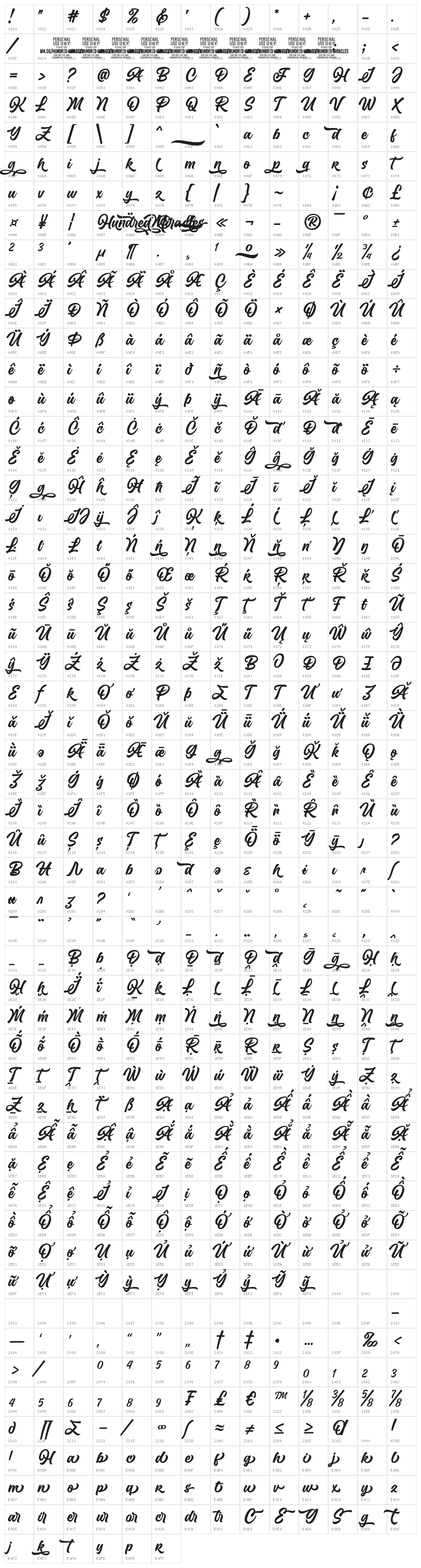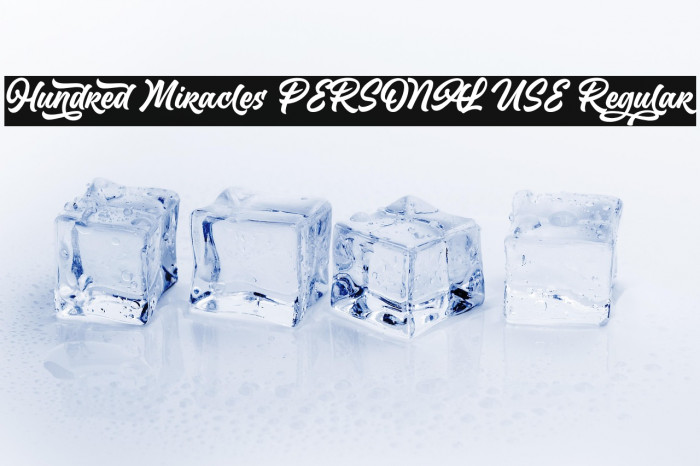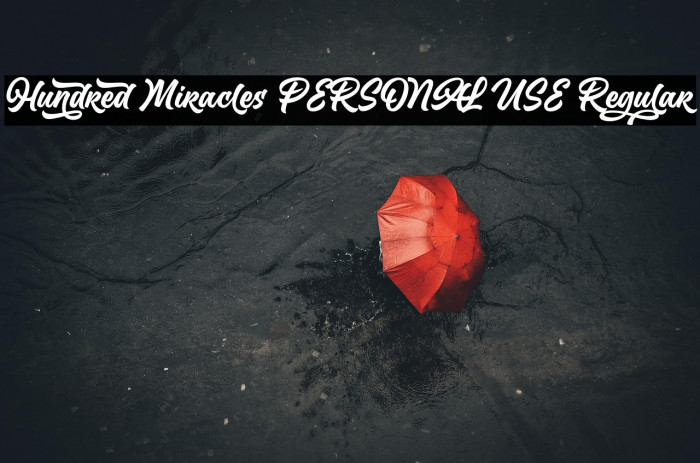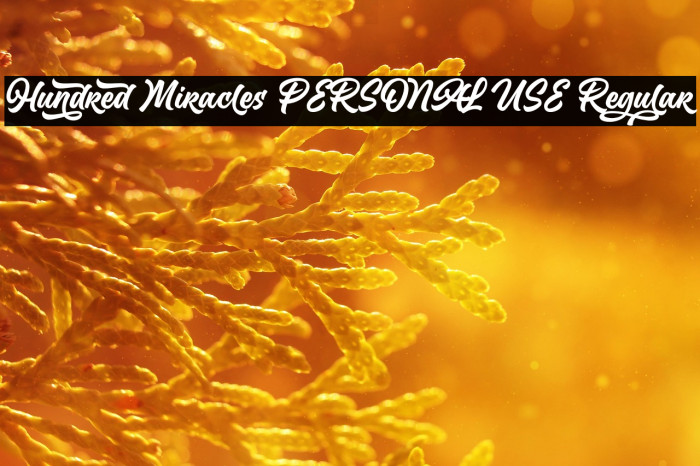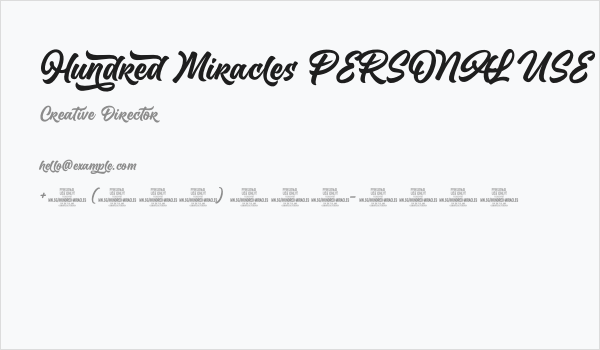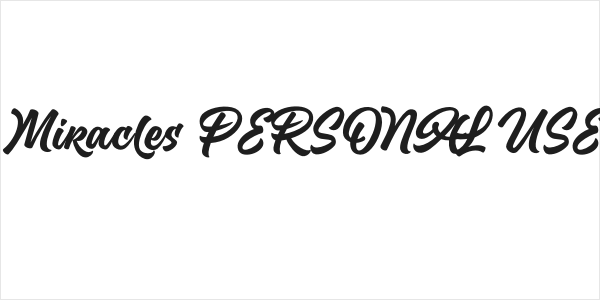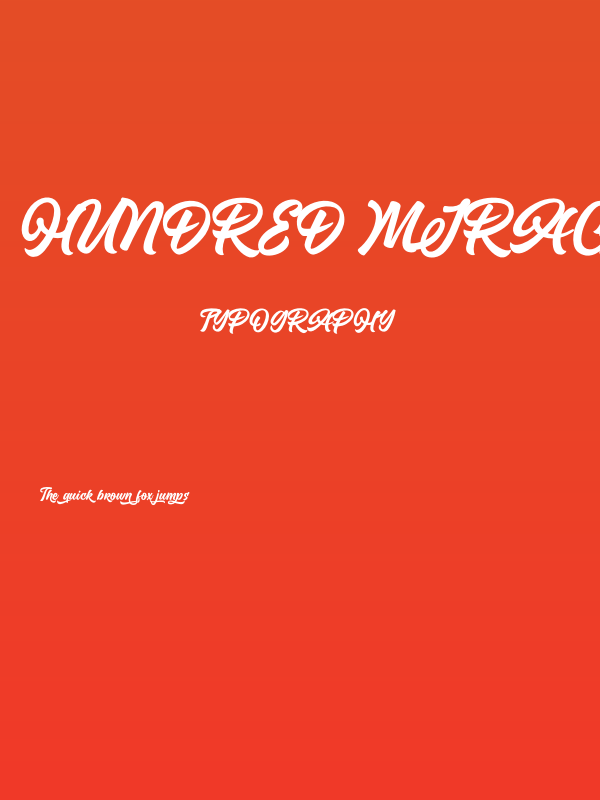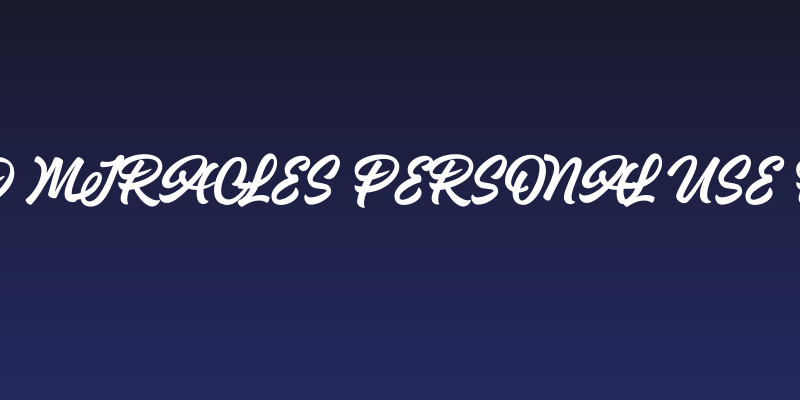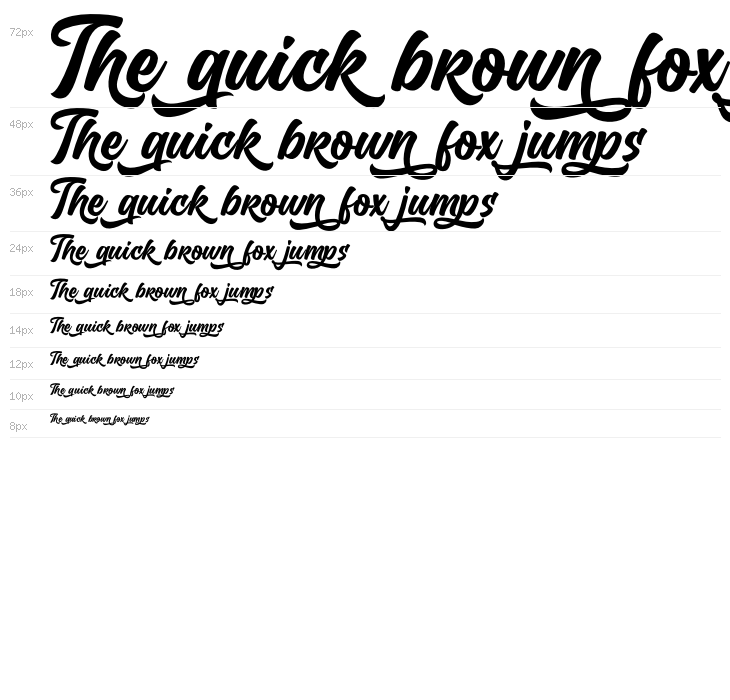
Hundred Miracles PERSONAL USE Regular Font
Hundred Miracles PERSONAL USE Regular Description
This font features a bold, flowing script style that exudes elegance and sophistication. The characters are interconnected with smooth, sweeping curves, giving it a dynamic and fluid appearance. The uppercase letters are particularly ornate, with decorative flourishes that enhance their visual appeal. The lowercase letters maintain a consistent style, complementing the uppercase with their own subtle embellishments. The numbers and special characters are crafted with the same attention to detail, ensuring a cohesive look across all elements. This font's bold strokes and artistic flair make it ideal for projects that require a touch of luxury and creativity.
| Proposed Projects | Ideal for wedding invitations, luxury branding, greeting cards, and artistic posters. |